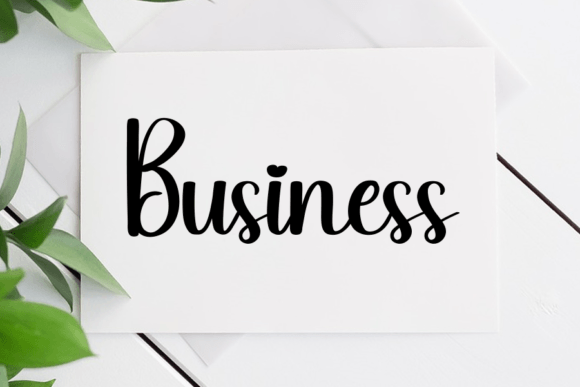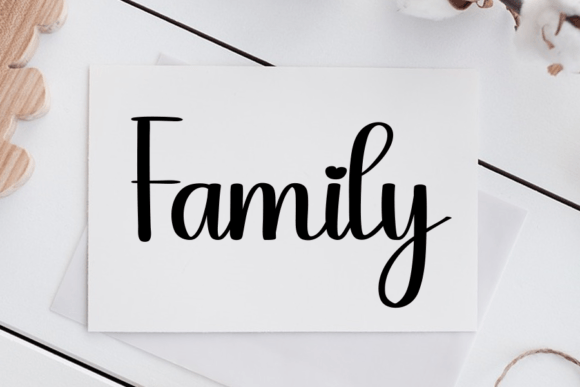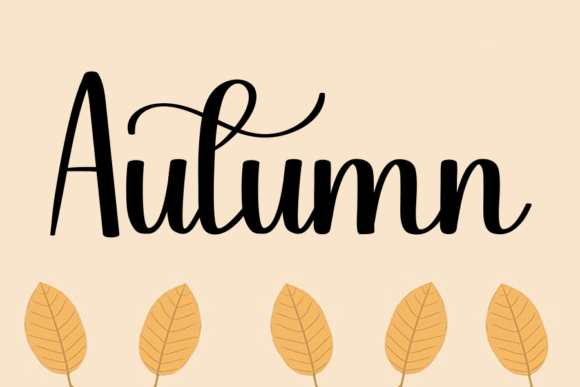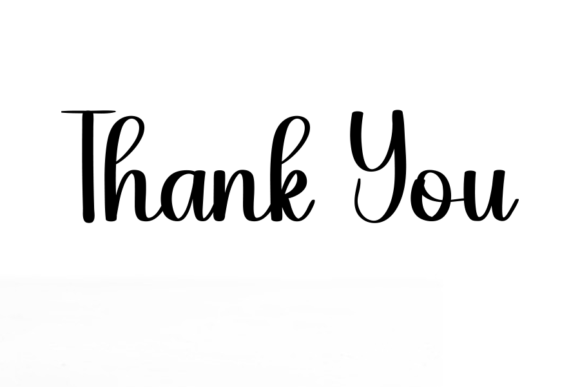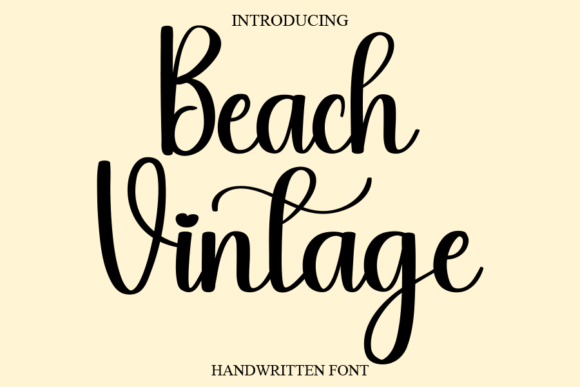
Introducing Beach Vintage Font: Elevate Your Designs with Elegance
Are you a designer or crafter looking for a font that exudes elegance and sophistication? Look no further than Beach Vintage Font, a delicate and flowing handwritten font that is sure to elevate your designs. With its beautiful and well-balanced characters, Beach Vintage Font matches a wide pool of designs, making it the perfect addition to your font collection.
The Charm of Beach Vintage Font
Beach Vintage Font is a unique and captivating font that is inspired by the carefree and romantic vibes of the beach. Its elegant and flowing script makes it perfect for designs that require a touch of sophistication and whimsy. Whether you’re creating wedding invitations, branding materials, or social media graphics, Beach Vintage Font is sure to add a touch of magic to your designs.
Key Features of Beach Vintage Font
- Delicate and elegant design: Beach Vintage Font features a delicate and elegant design that is perfect for creating sophisticated and eye-catching designs.
- Well-balanced characters: The font’s characters are well-balanced and proportioned, making it easy to read and visually appealing.
- Flowing script: The font’s flowing script gives it a romantic and whimsical feel that’s perfect for designs that require a touch of elegance.
- Versatile: Beach Vintage Font matches a wide pool of designs, making it a versatile addition to your font collection.
Uses for Beach Vintage Font
Beach Vintage Font is a versatile font that can be used for a wide range of design projects, including:
- Wedding invitations and stationery: The font’s elegant and romantic design makes it perfect for wedding invitations, save-the-date cards, and other wedding stationery.
- Branding and packaging: Beach Vintage Font is a great choice for branding and packaging designs that require a touch of sophistication and elegance.
- Social media graphics: The font’s flowing script and delicate design make it perfect for social media graphics, such as Instagram posts and Facebook covers.
- Signage and display graphics: Beach Vintage Font can also be used for signage and display graphics, such as store signs, banners, and posters.
Why Choose Beach Vintage Font?
With so many fonts to choose from, why should you choose Beach Vintage Font? Here are just a few reasons:
- Unique and eye-catching design: Beach Vintage Font features a unique and eye-catching design that is sure to set your designs apart from the crowd.
- Elegant and sophisticated: The font’s elegant and sophisticated design makes it perfect for designs that require a touch of luxury and refinement.
- Easy to read: Despite its delicate design, Beach Vintage Font is easy to read and understand, making it perfect for designs that require a clear and concise message.